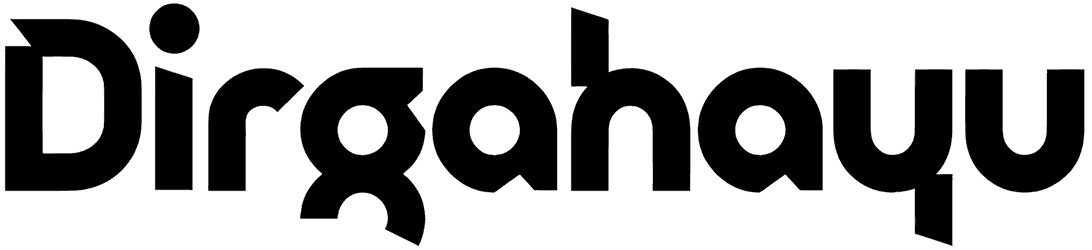
d Dirgahayu Font
Today we suggest a bold weight, modern type of font called d Dirgahayu that is so special for logo design, branding, and labeling. This has a cool, dynamic, and sports mood, making it a great option for digital projects, industries, and racing car companies.
You can consider it for gaming, T-shirt prints, commercial, packaging, flyers, and posters to show your product more professionally and get everyone’s attention.